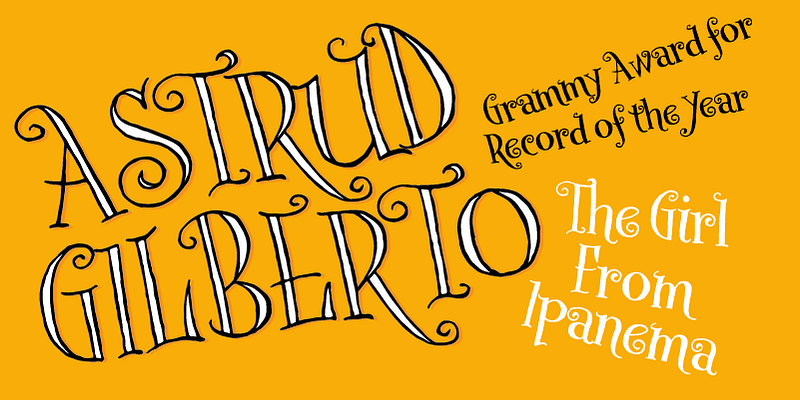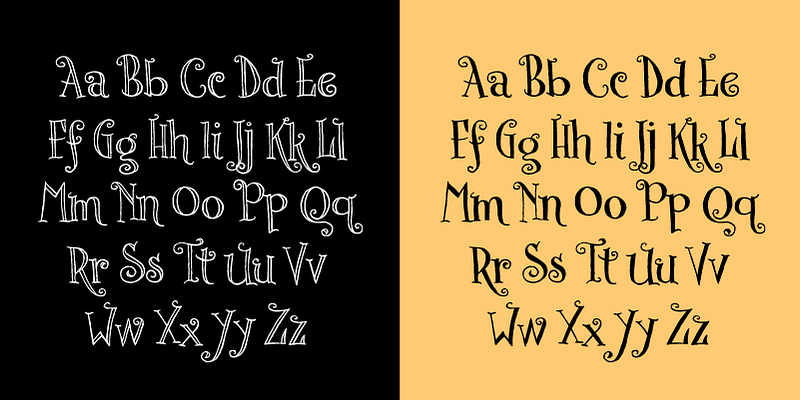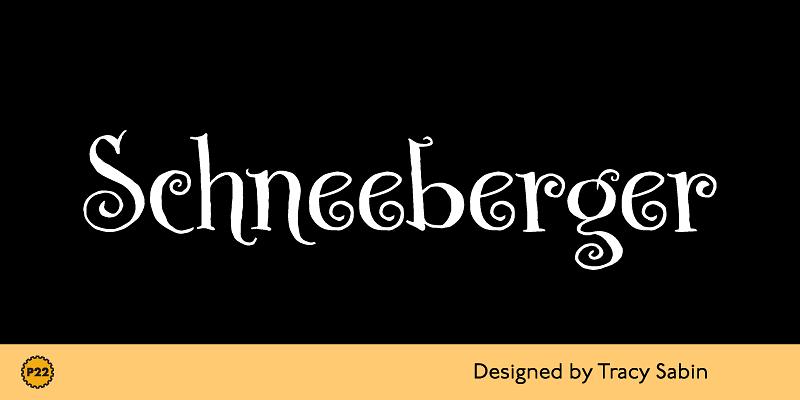
P22 Schneeburger is a playfully whimsical display serif designed by Tracy Sabin. With many influences, from mid-century art nouveau to today’s pleasant dream-pop doodles, one can imagine how this sweet and animated alphabet developed. Layered or separate, the jumpy baseline, rough outlines, and curly elements make this eye-catching face perfect for fantasy flicks, wrapping sugary delights, social media events, and elaborate backyard birthday party invites for adults and children alike.